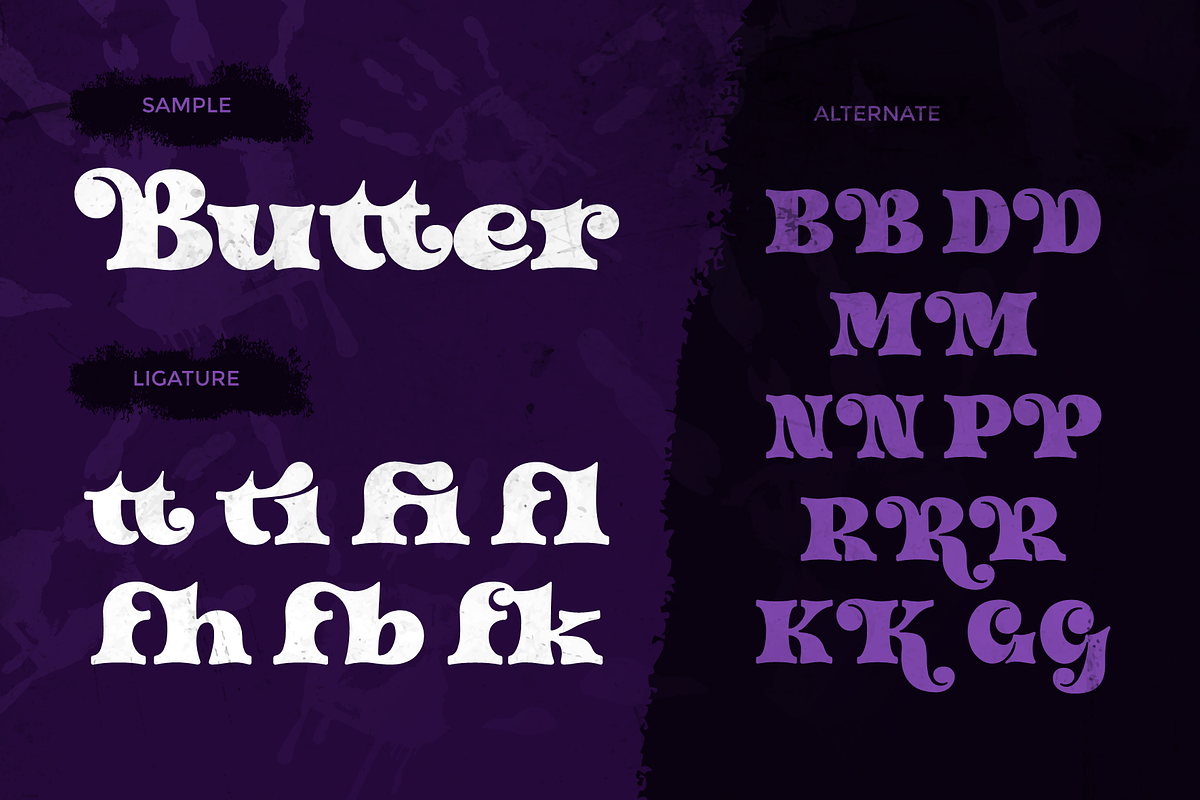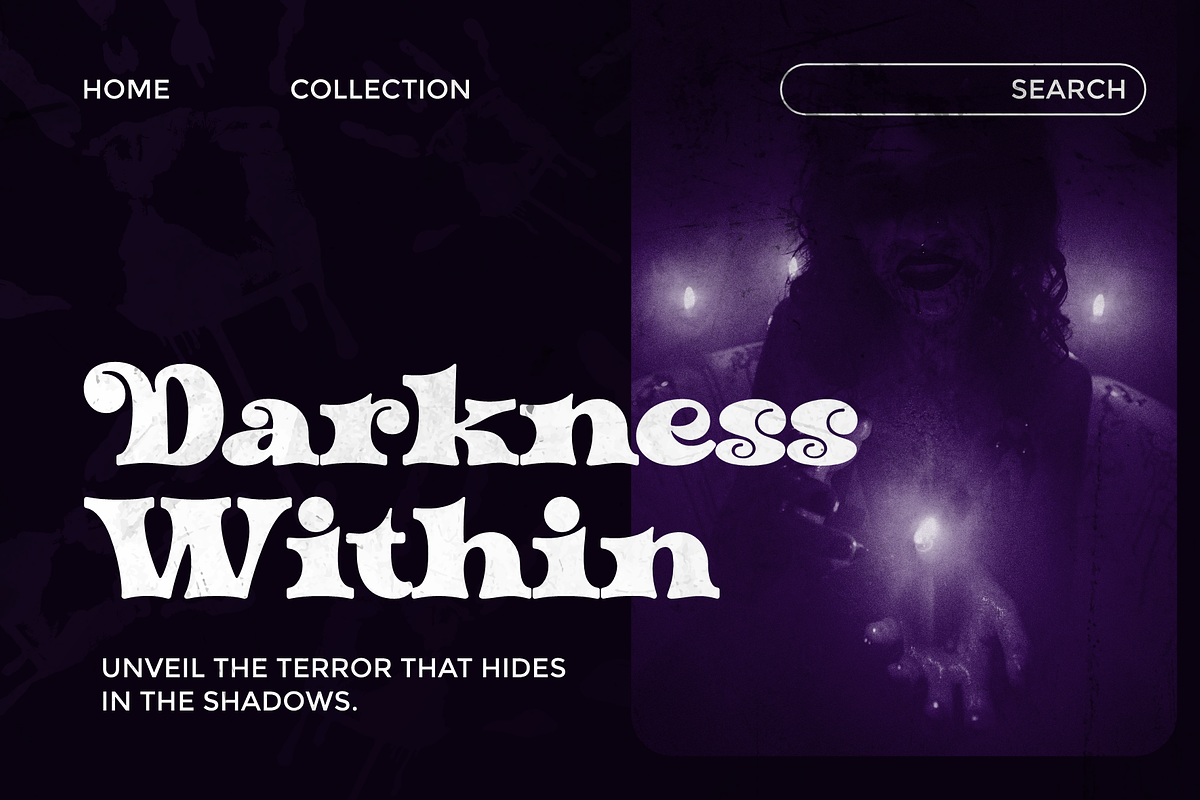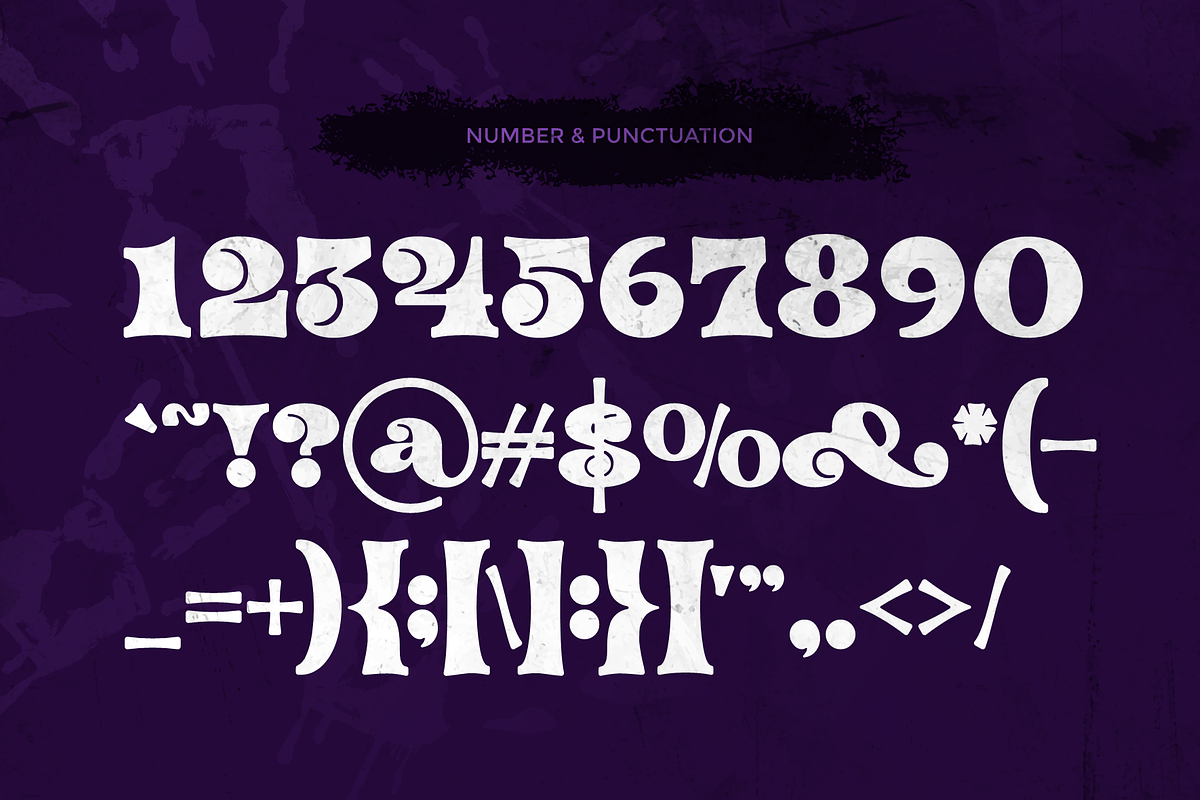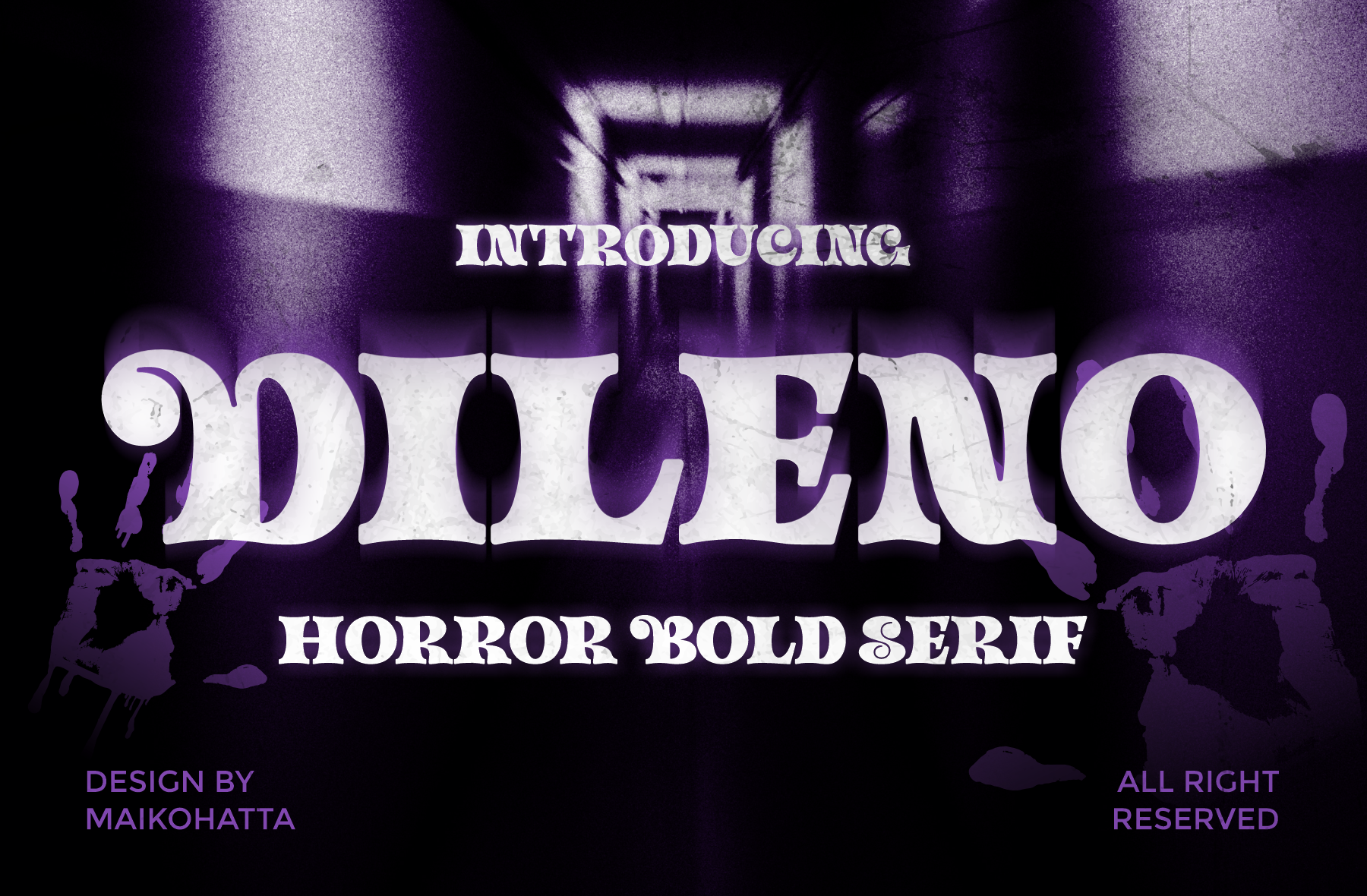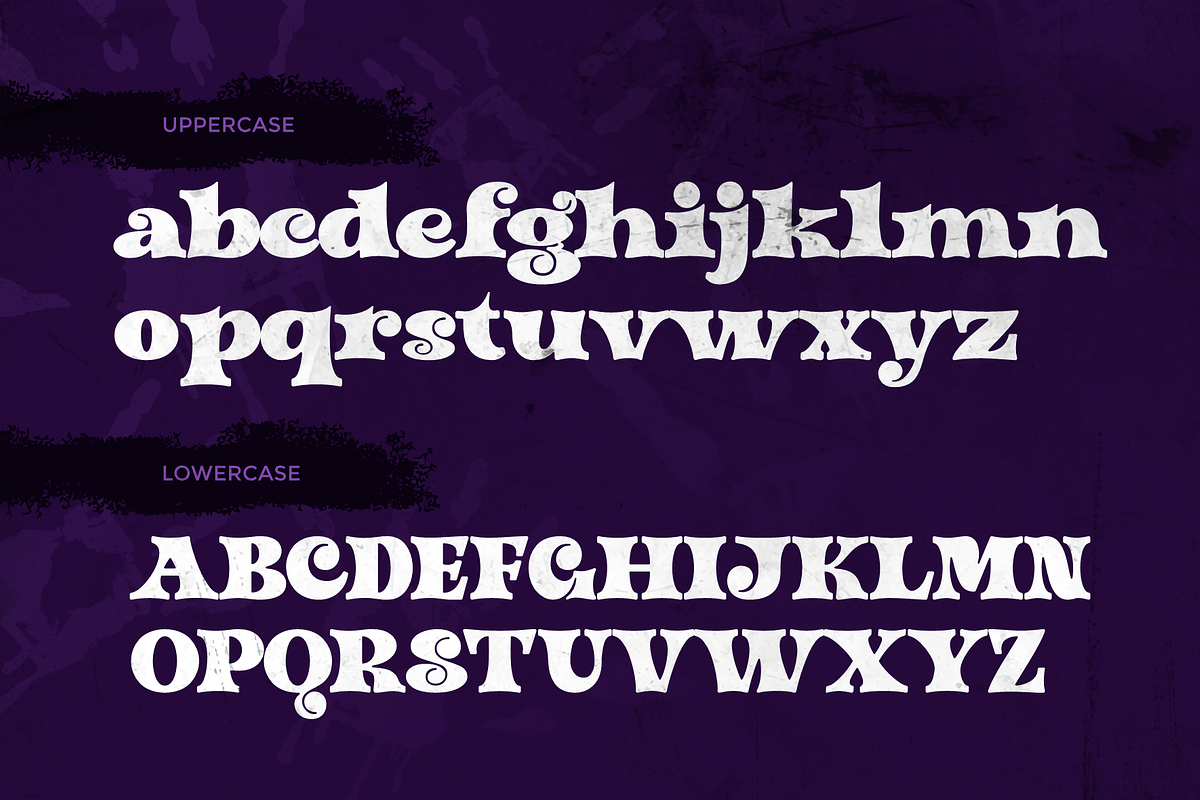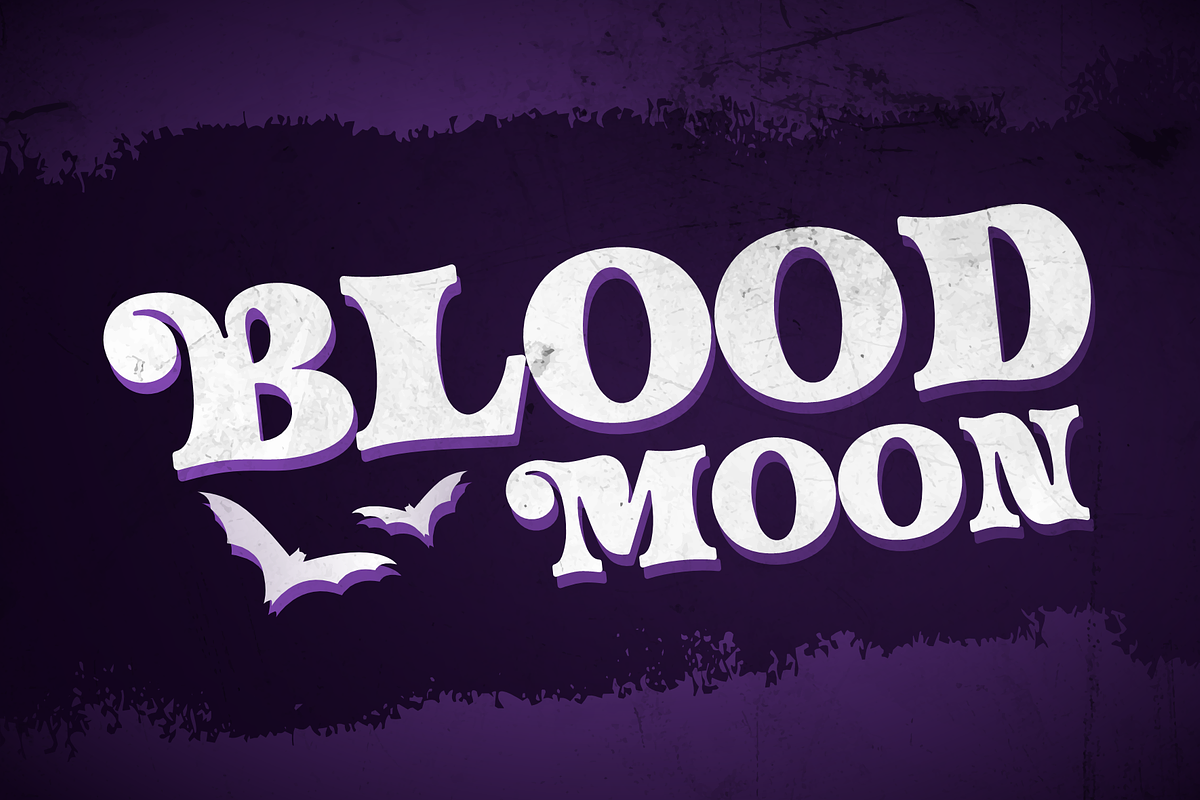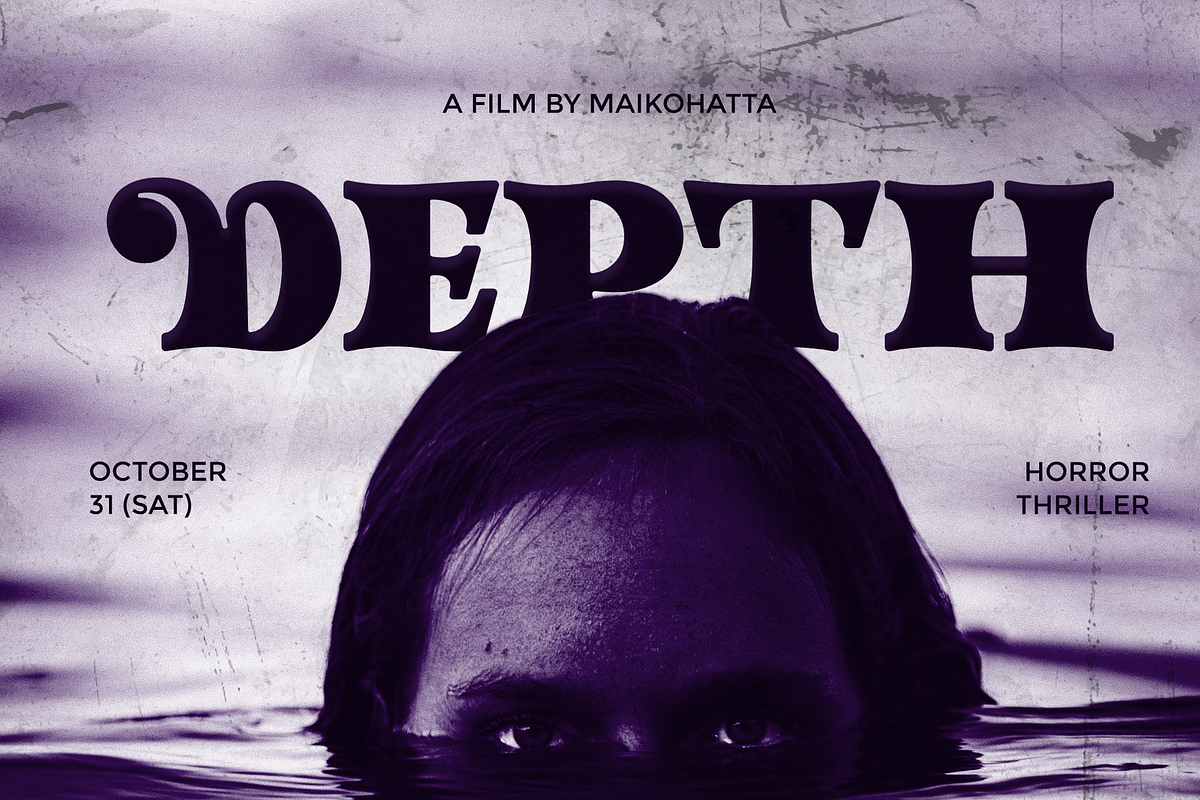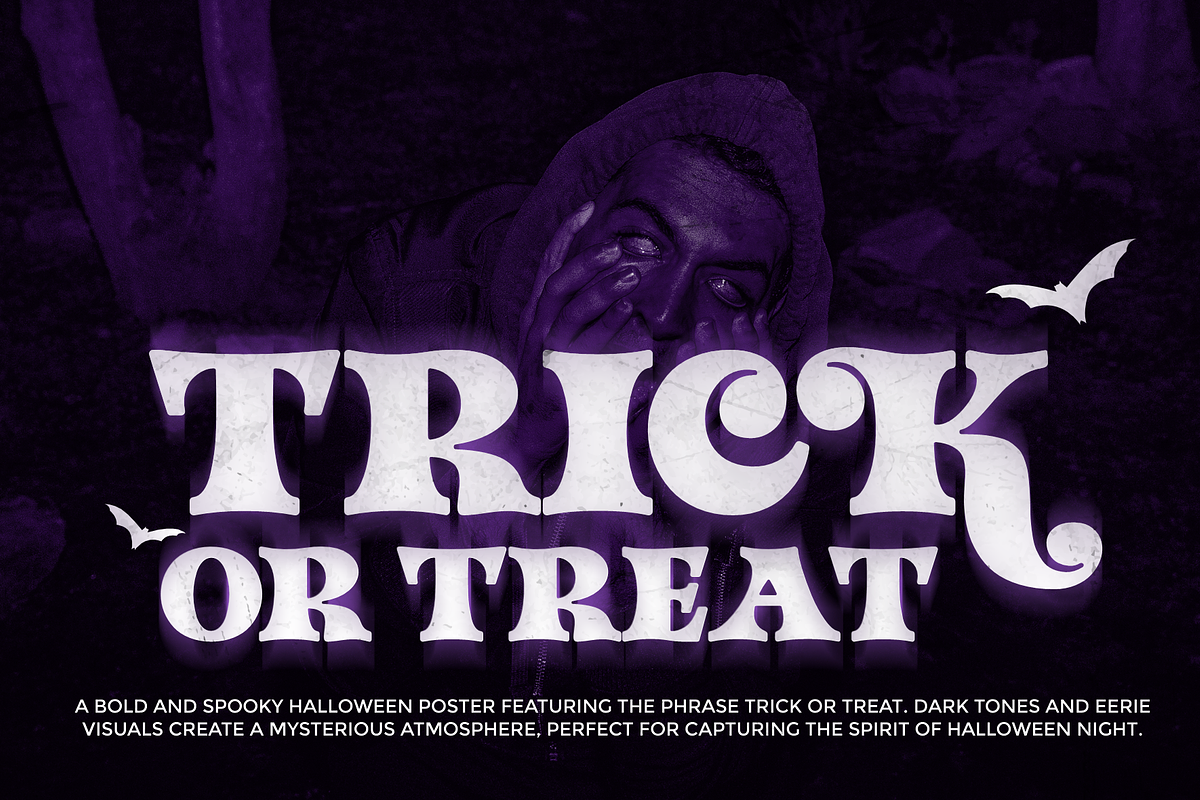
Dileno - Horor Bold Serif Font
Dileno is a bold serif typeface with a strong horror-inspired aesthetic. Featuring thick strokes, dramatic curves, and distressed textures, this font captures a spooky yet stylish vibe that’s perfect for dark, eerie, or mysterious themes. Its bold presence makes it ideal for horror movie titles, Halloween posters, gothic branding, book covers, or any design that needs a hauntingly bold touch. The unique blend of vintage serif structure and horror elements gives Dileno a distinctive, eye-catching look that stands out in any design project.